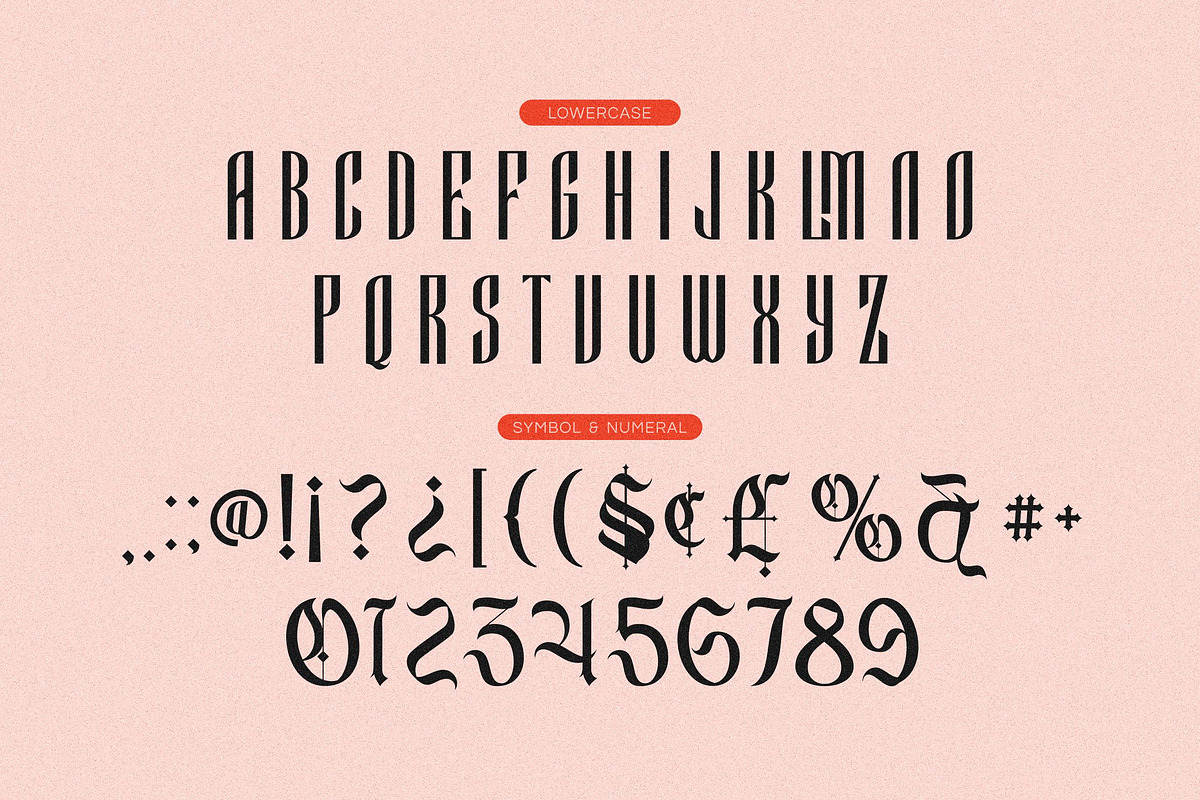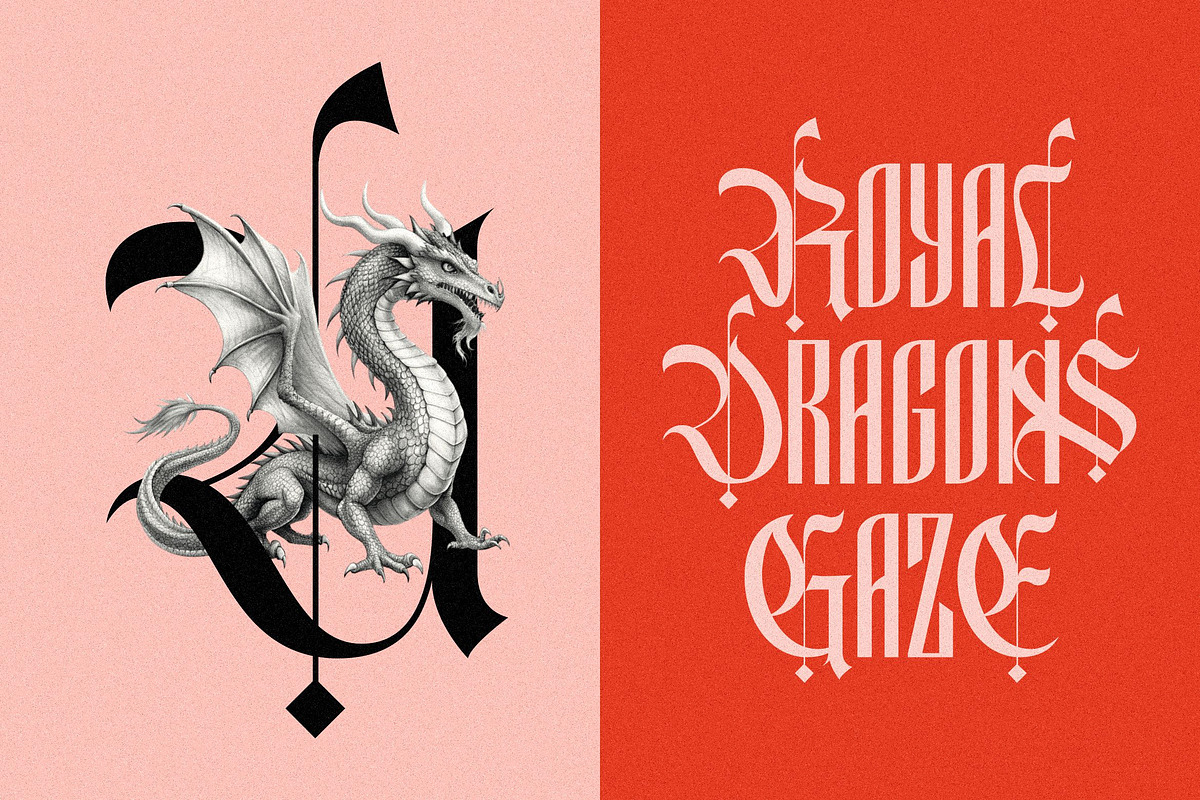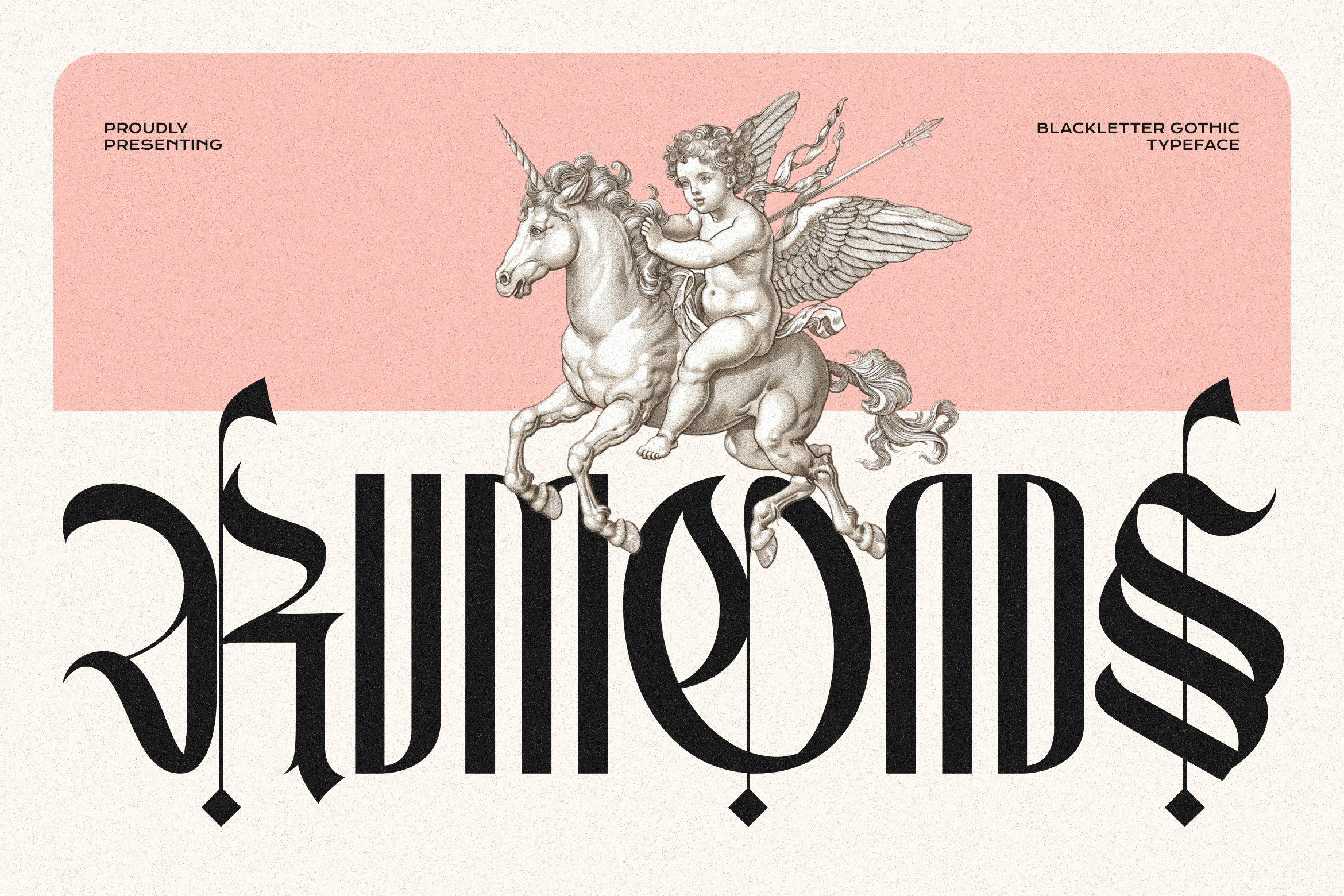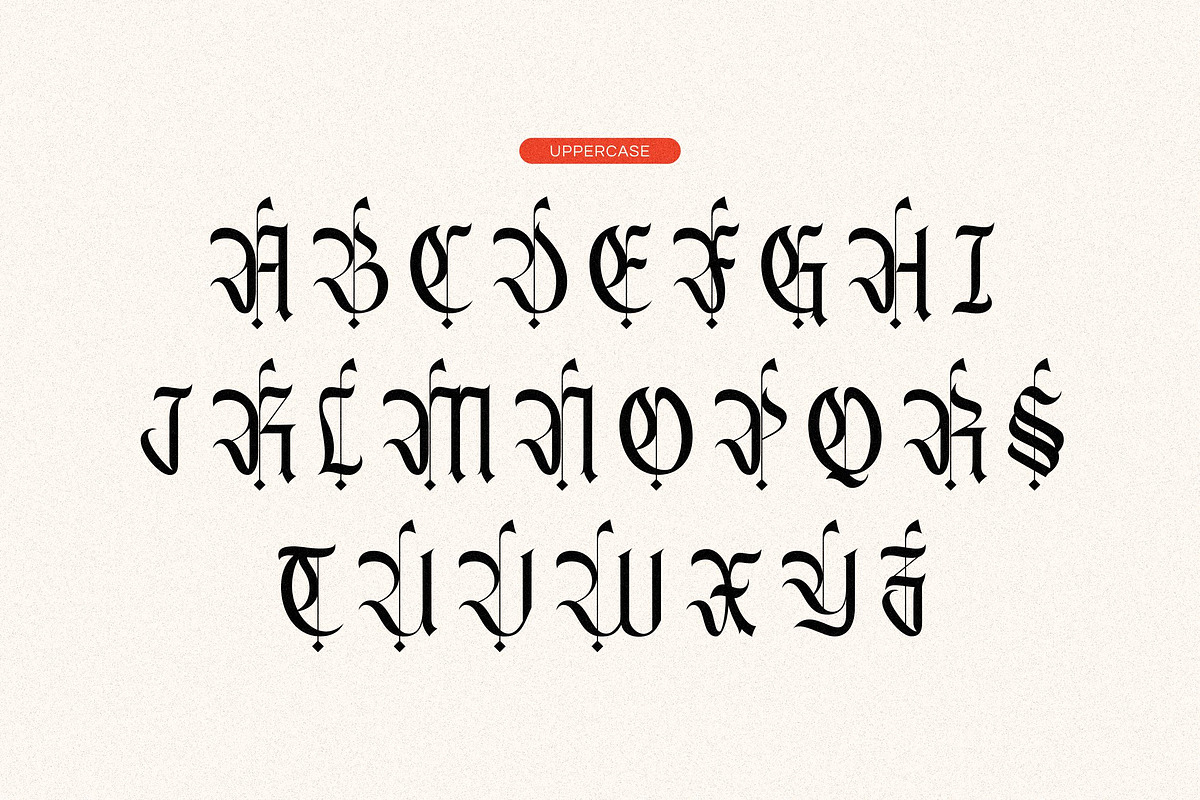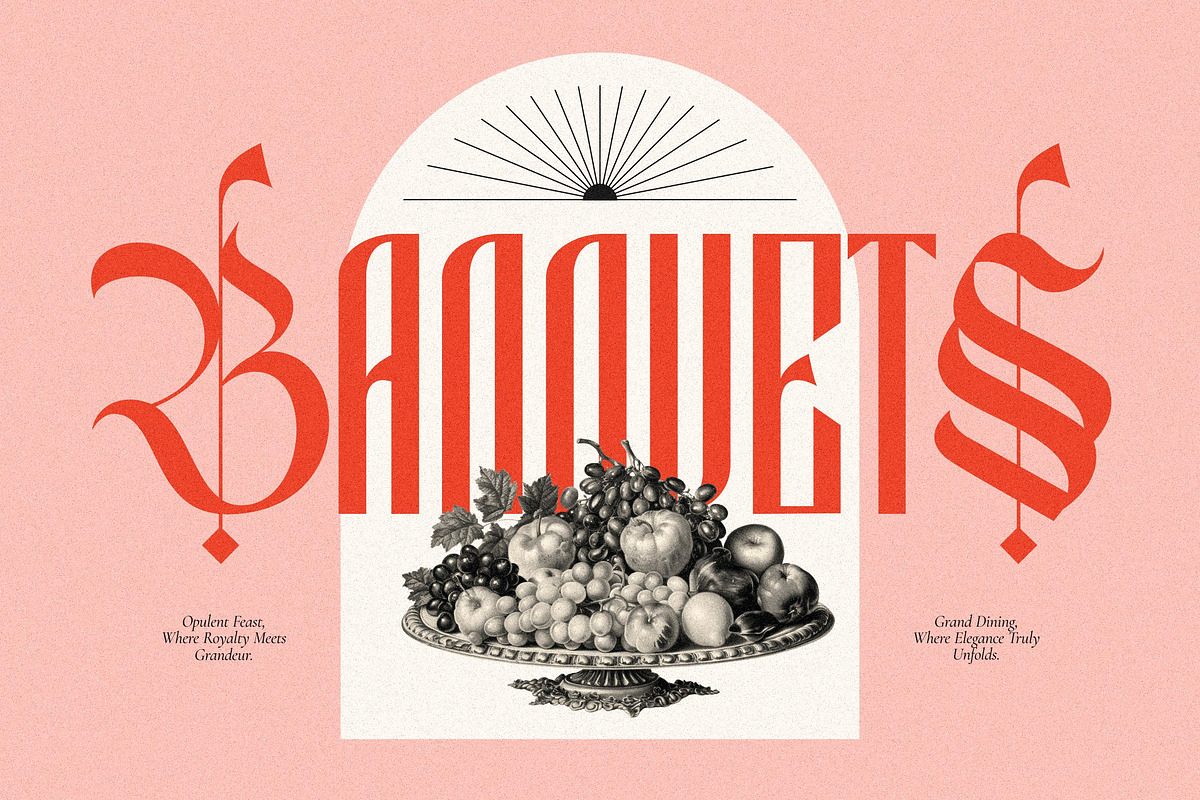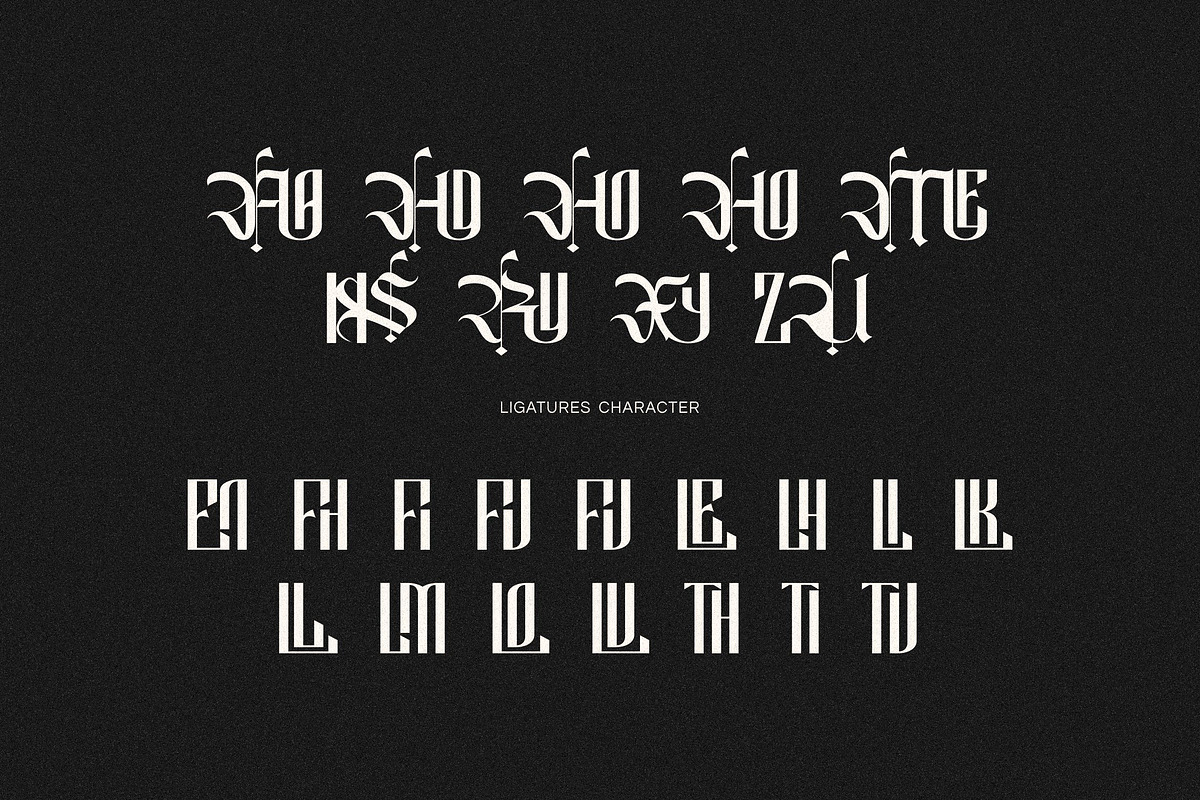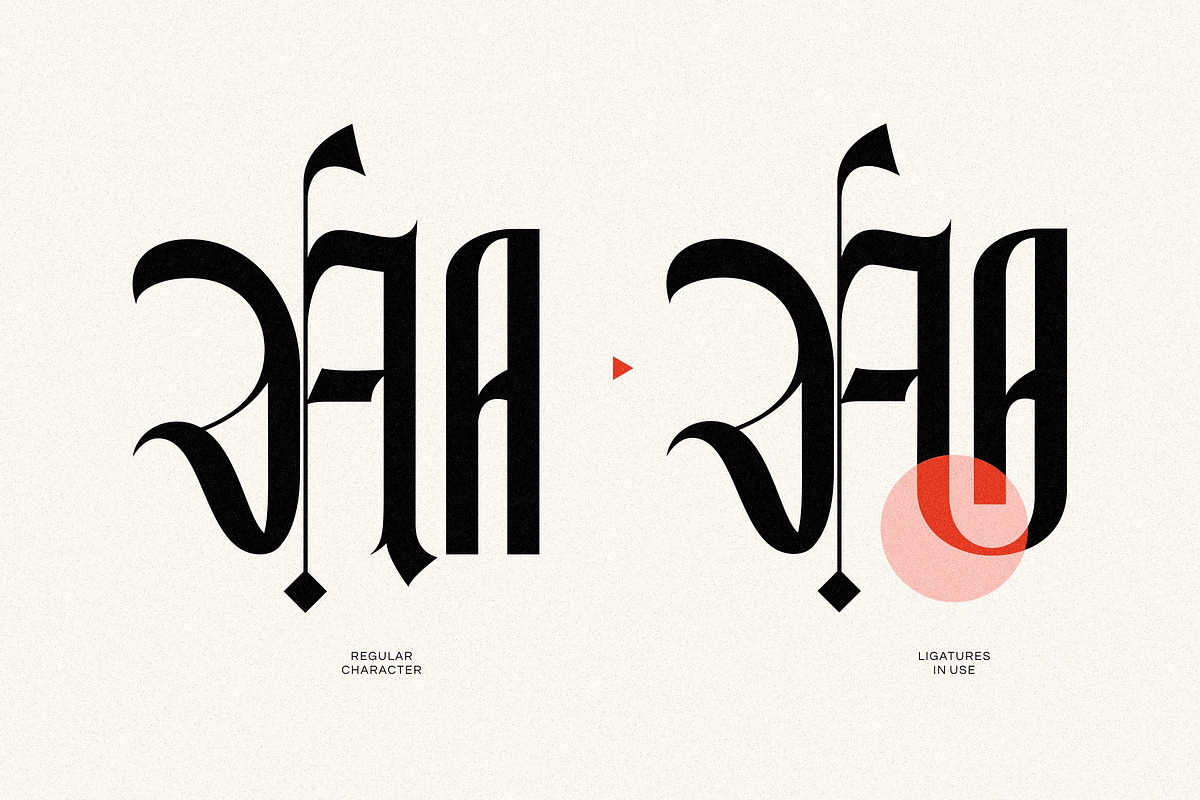
Rumonds - Blackletter Gothic Font
Rumonds is a majestic and powerful font that masterfully blends historical grandeur with modern minimalism. This unique typeface features two distinct personalities that create a stunning visual contrast.
The uppercase letters, numerals, and symbols are crafted in an ornate, blackletter gothic style, evoking a sense of medieval fantasy, royal decrees, and timeless elegance. These characters are perfect for creating impactful initials, powerful headlines, and decorative logos.
In striking contrast, the lowercase letters are presented in a clean, high contrast, condensed style. This modern sans serif provides excellent clarity and a contemporary edge, making it suitable for supporting text or for creating a sleek, minimalist look on its own.
With an extensive set of decorative ligatures and alternate characters, this font allows you to transform simple text into a work of art. It's the perfect choice for branding projects, related to history, fantasy, classical feel, medieval, or luxurious branding, and mythology, emphasizing a majestic and ancient vibe.
- Uppercase and Lowecase Characters.
- Numerals and Punctuations.
- Alternates and Ligatures.
- Multilingual Support.